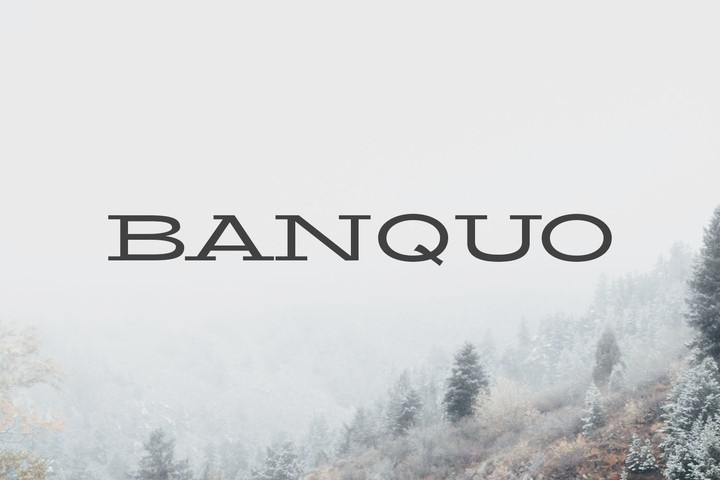
Banquo Font
Banquo Font is perfect for theatrical productions, dramatic poster designs, literary publications, classical music programs, Shakespeare festival materials, cultural event branding, academic presentations, and distinguished editorial content.
Banquo Font is exciting because it embodies theatrical gravitas with noble letterforms and dramatic character details that evoke Shakespearean grandeur and classical sophistication. Its regal personality creates immediate associations with literary excellence and cultural distinction that resonates with audiences seeking authentic dramatic expression and theatrical heritage.
Banquo Font family includes regular weight with theatrical alternates and dramatic variations, providing designers with comprehensive options for creating authoritative typography solutions that project literary distinction and classical sophistication.
Creative professionals consistently choose Banquo Font for projects requiring theatrical authenticity and dramatic appeal. Its noble character works magnificently in theater productions, literary events, cultural programming, and academic conferences where dramatic credibility and classical authority drive audience respect. The font's regal presence creates memorable cultural experiences that communicate literary heritage and theatrical distinction.
Cultural teams appreciate Banquo Font's ability to communicate literary authenticity and theatrical sophistication in competitive cultural markets. Its dramatic styling transcends contemporary design trends while maintaining the gravitas required for classical positioning, making it an essential tool for organizations seeking to establish lasting cultural authority through superior theatrical typography and exceptional literary communication.